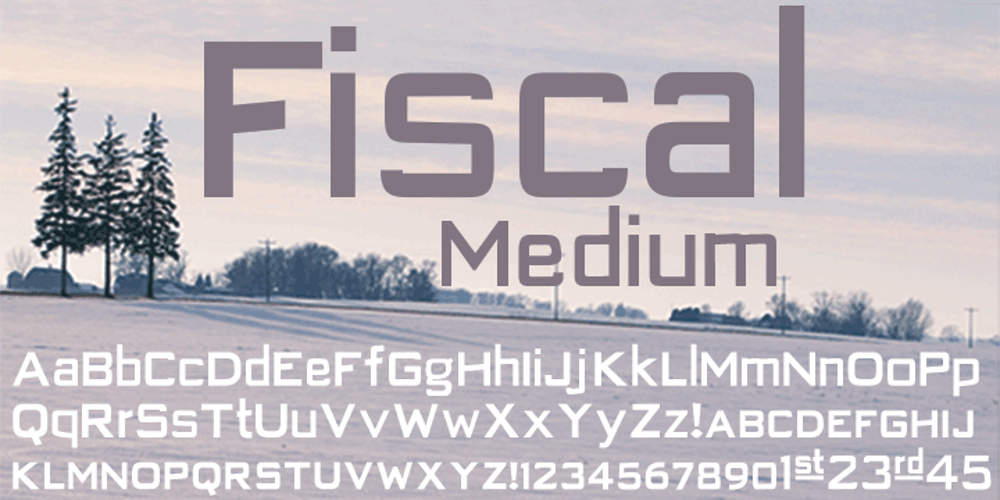
Fiscal
Fiscal font
Fiscal Font Family was designed by David Bergsland and published by Hackberry Font Foundry. Fiscal contains 1 styles and family package options. This is a squared sans serif font family developed out of a taller Bank Gothic model plus a true lower case with many OpenType features and over 600 characters: Caps, lower case, small caps, ligatures, discretionary ligatures, swashes, small cap figures, old style figures, numerators, denominators, accent characters (including CE), ordinal numbers (1st-infinity: lining and oldstyle), and so on. It is designed for text use in body copy. For display tighten the tracking.